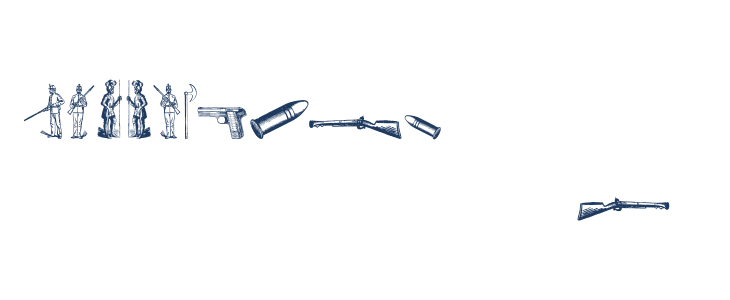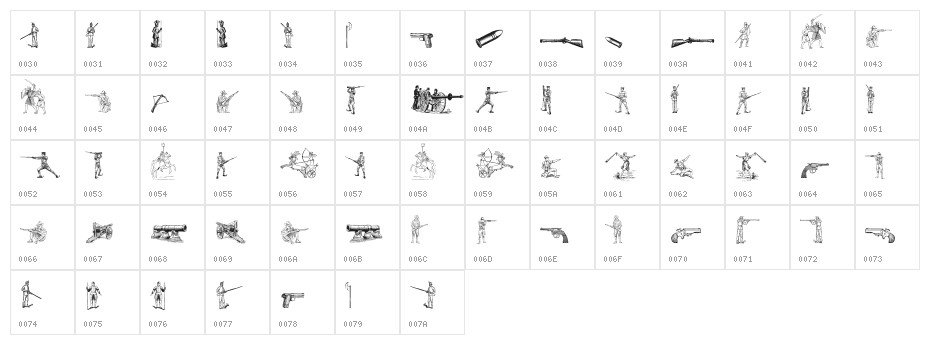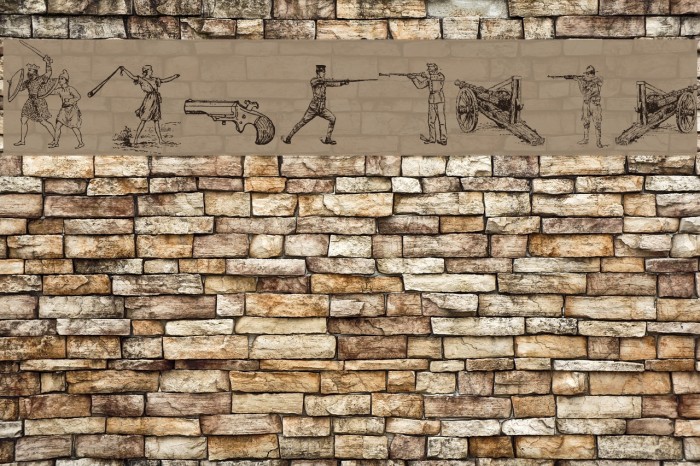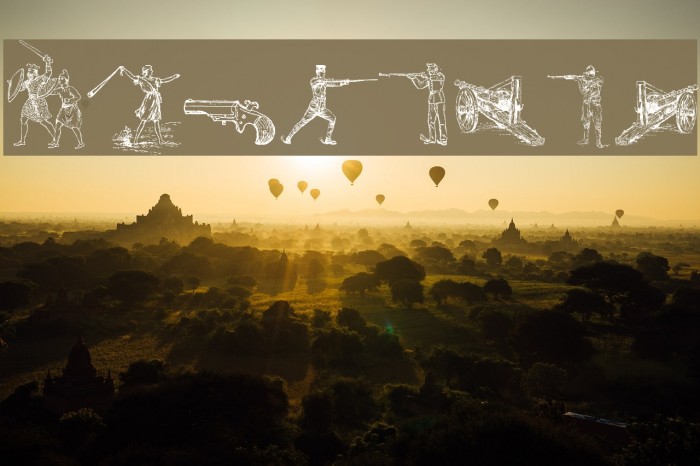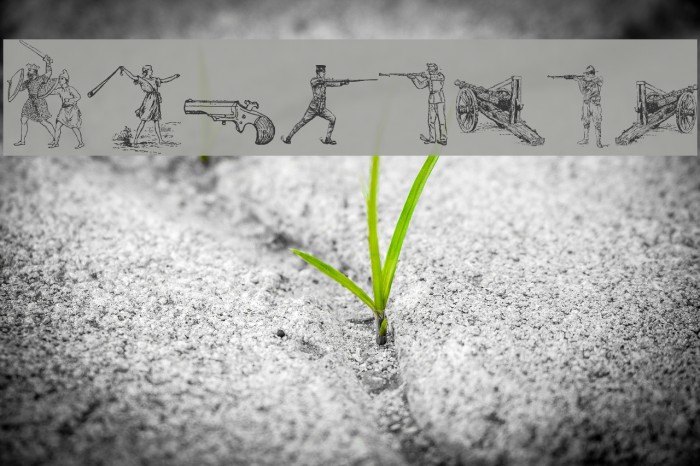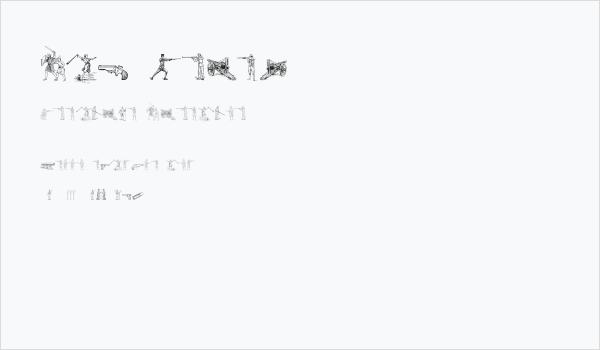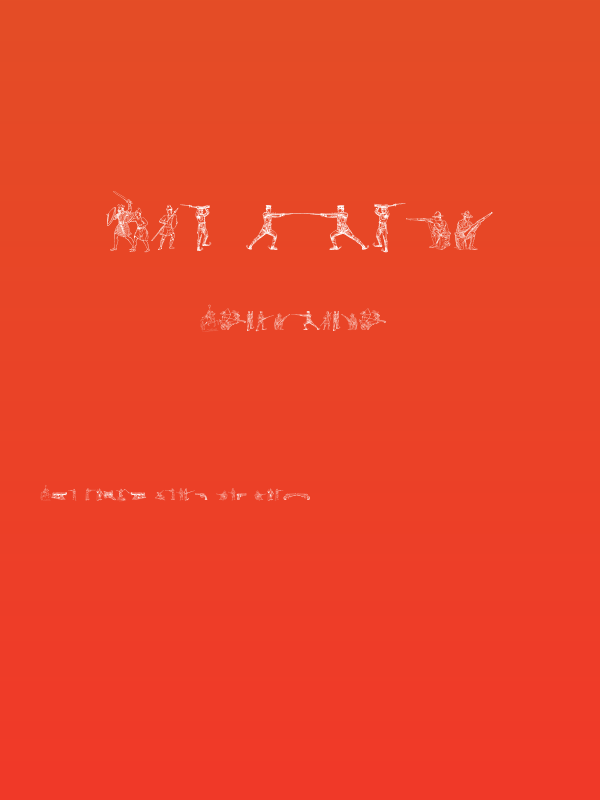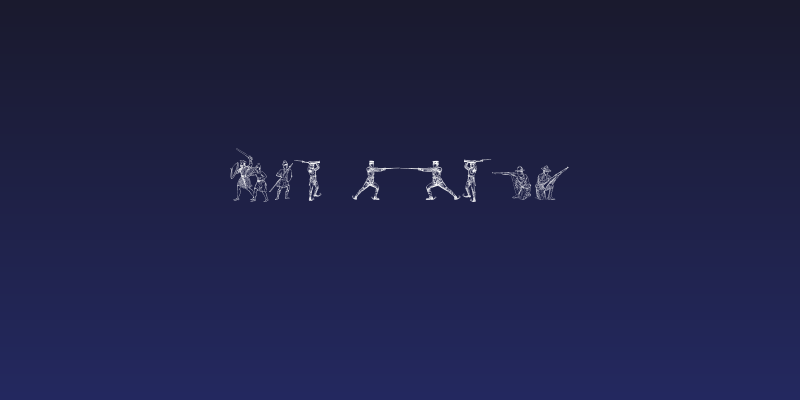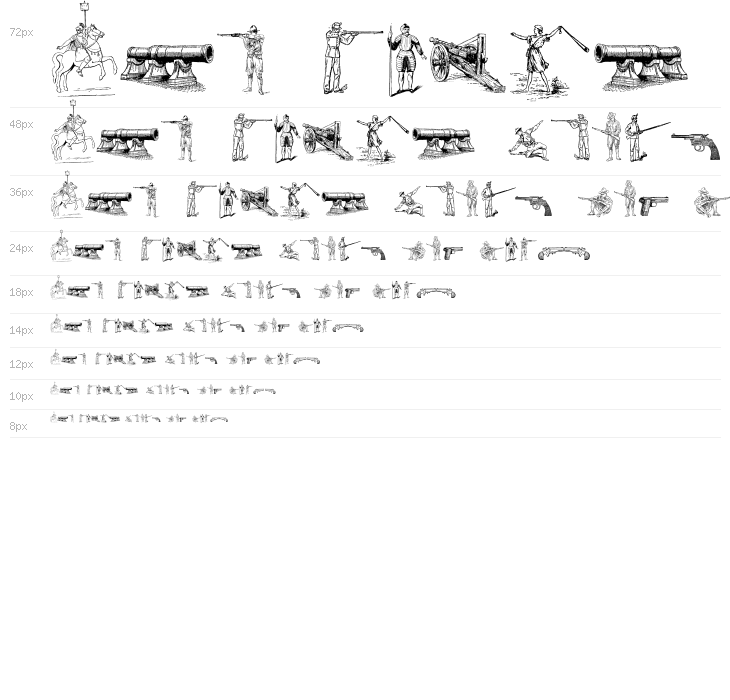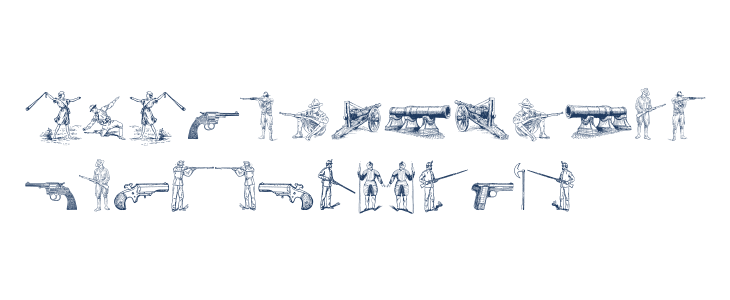
Das Krieg Font
A highly detailed, illustrative dingbat font featuring vintage military and war-themed imagery such as soldiers, cannons, firearms, cavalry, and weaponry, rendered in a hand-drawn, engraved style reminiscent of 19th-century illustrations.
Overall StyleVintage, Decorative, Historical
Use CaseDecorative elements, Thematic illustrations, Visual storytelling
Proposed ProjectsHistorical posters, educational materials, themed event invitations, book covers, game assets, and decorative design projects requiring period-accurate military imagery.